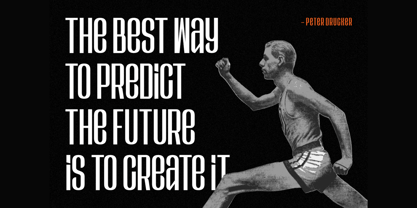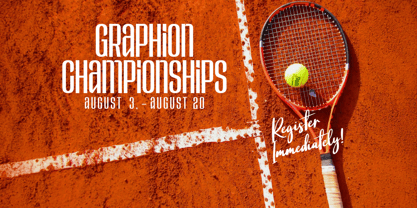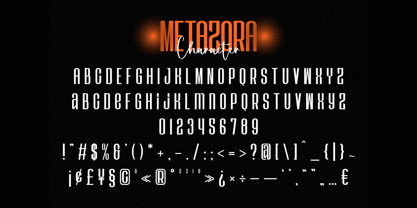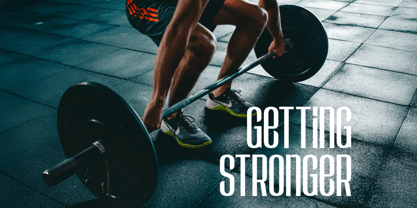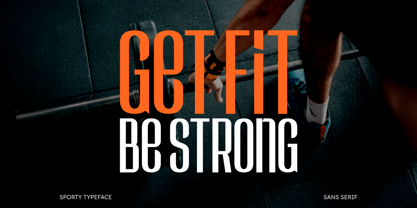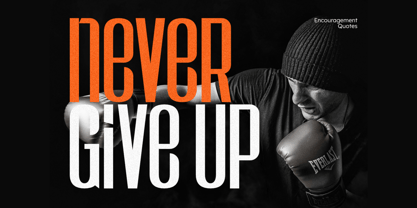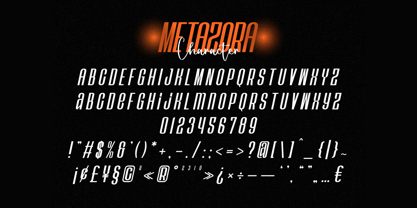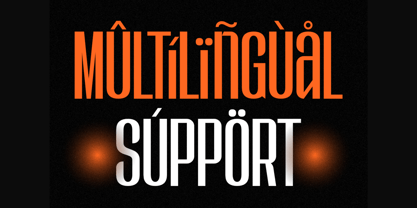
Metazora
Metazora is a modern condensed sans serif designed to bring bold, sporty energy to your creative projects. With its confident, compact letterforms and sleek style, Metazora is perfect for powerful branding, athletic-inspired logos, poster headlines, and striking social media graphics.
The Regular style features strong, modern shapes with a clean and streamlined silhouette, while the Italic style adds a dynamic sense of movement — perfect for designs that demand a sense of speed and performance. Metazora’s versatility makes it easy to adapt for everything from sports campaigns to urban branding and contemporary editorial layouts.
From energetic event posters to powerful wordmarks, Metazora helps your typography deliver a bold, modern statement.
Features:
* Modern condensed sans serif with sporty character
* Two styles: Regular • Italic
* Uppercase & lowercase letters
* Numerals & punctuation
Give your words a bold and athletic presence — with Metazora.